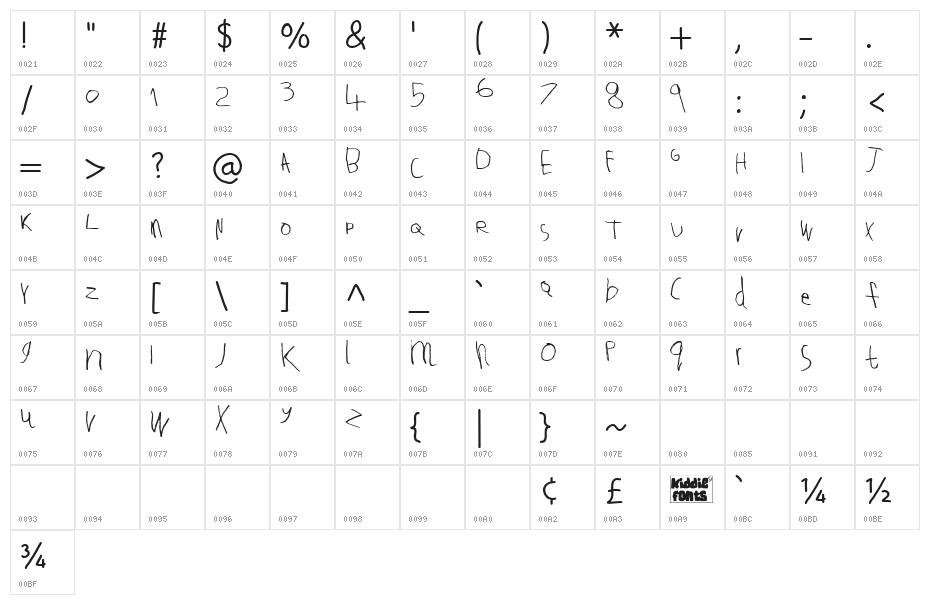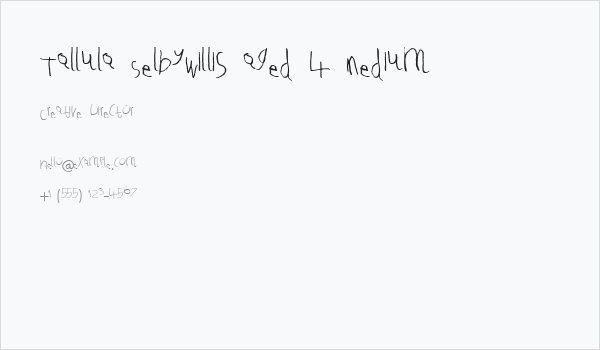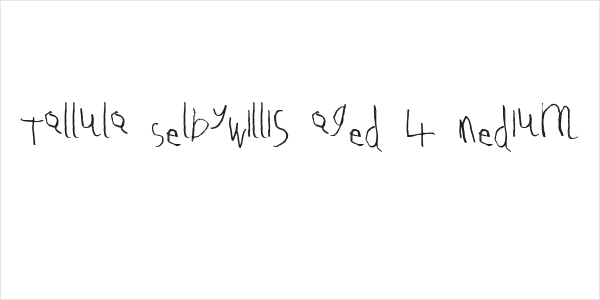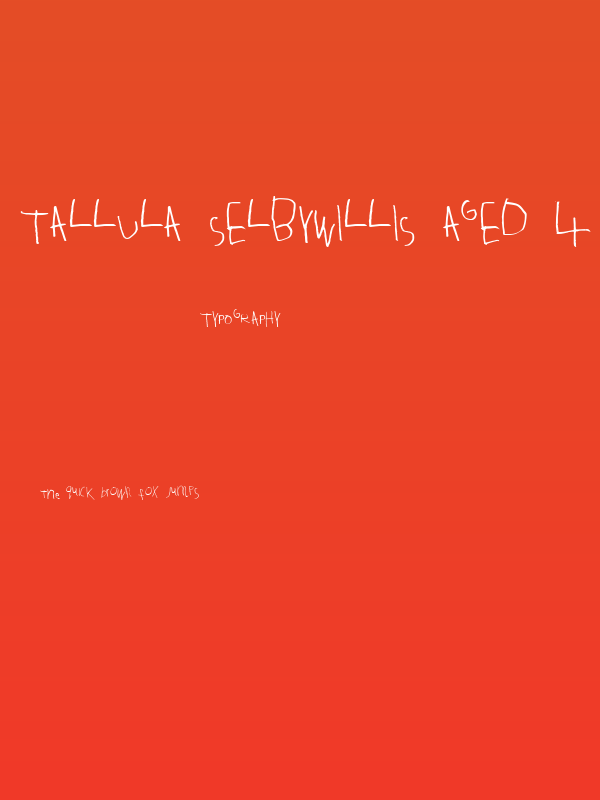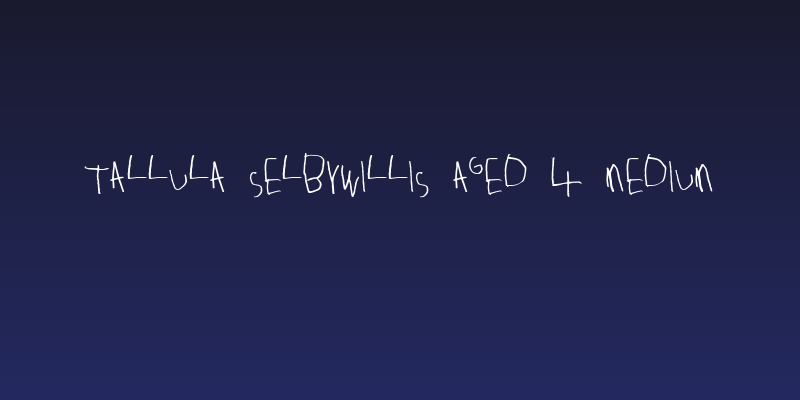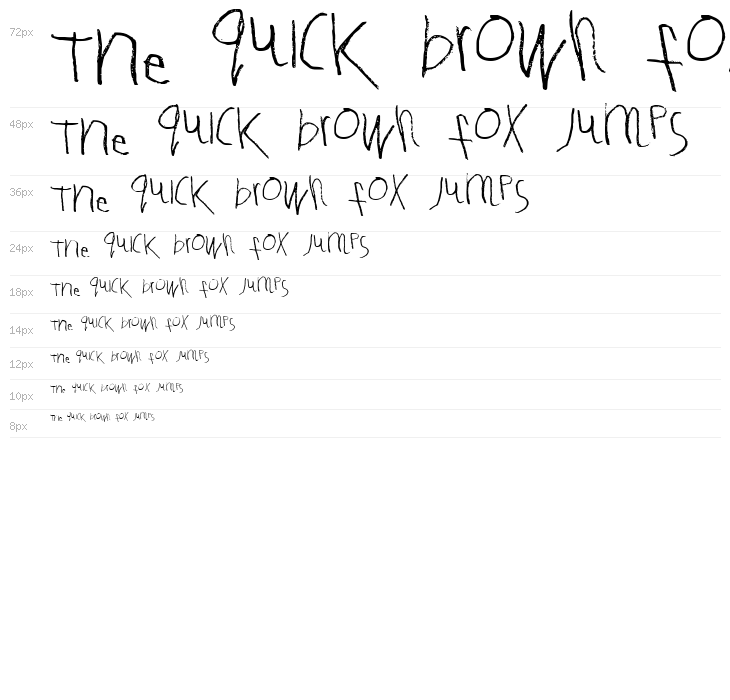
Tallula SelbyWillis aged 4 Medium Font
Tallula SelbyWillis aged 4 Medium Description
This font exudes a playful and whimsical charm, reminiscent of a child's handwriting. The characters are unevenly sized and spaced, adding to its informal and spontaneous feel. The strokes are varied, with some letters featuring thicker lines while others are more delicate, creating a dynamic visual rhythm. The overall appearance is casual and approachable, making it ideal for projects that require a touch of personality and warmth. The font includes a full set of uppercase and lowercase letters, numbers, and a variety of special characters, ensuring versatility in its application.
| Proposed Projects | Ideal for children's books, playful branding, greeting cards, and informal invitations. |